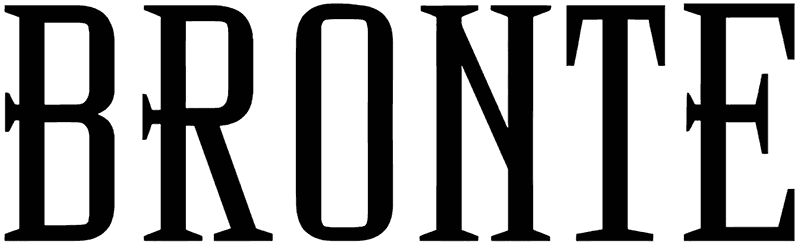
Bronte Font
A fancy whiskey font, Bronte exudes sophistication and elegance. Despite the absence of lowercase letters, it can be used for a wide variety of design purposes, including but not limited to posters, greeting cards, quote graphics, and other graphic design endeavors.